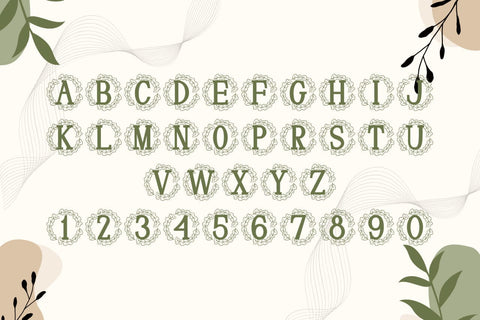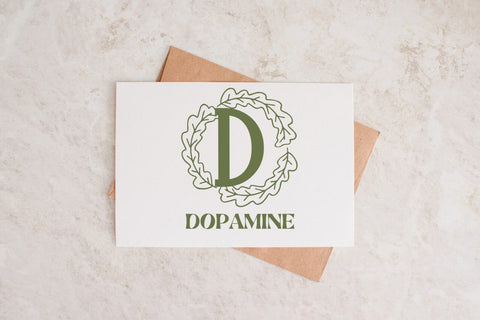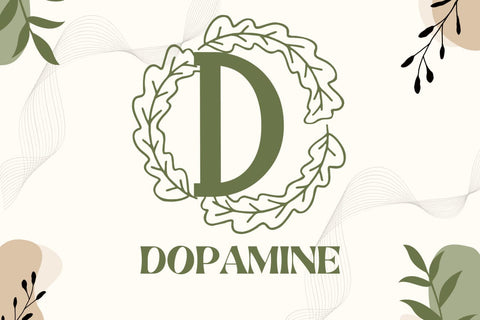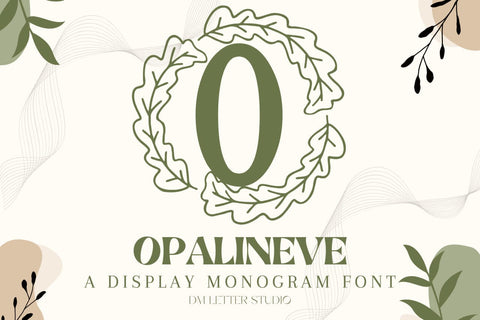
Opalineve Monogram Font
Meet Opalineve, the Monogram Font
Opalineve Monogram Font turns simple initials into luminous, boutique-ready emblems. Lines are smooth and balanced, with gentle curves that feel elegant without fuss. Open counters keep tiny tags readable and thumbnails crisp, so your work looks polished from favor labels to entryway signage. Use it for wedding suites, boutique logos, keepsake gifts, foil seals, stationery, and premium packaging. In addition, Opalineve pairs beautifully with a soft serif or a neat humanist sans, which makes layout decisions quick and consistent.
Where this monogram font shines
Set single, double, or triple initials for logos, seals, menus, and place cards. Then frame them with laurel rings, oval borders, rope circles, or thin rules to echo Opalineve’s calm geometry. Because proportions favor symmetry and steady spacing, centered compositions come together in minutes. As a result, your listings stay cohesive across invitations, signage, boxes, and tags. Opalineve also scales smoothly from jewelry cards to statement wall pieces.
Design tips for Opalineve Monogram
Keep initials large and let white space breathe. Pair the hero mark with a soft serif for body copy or a tidy sans for dates and labels. Add a fine inner stroke, micro shadow, or delicate frame to create depth. Because the structure is airy and refined, textured papers and metallic foils raise perceived value. Keep wording short so the monogram remains the hero, especially on small favors and wax seals.
Select stylistic alternates for key letters
Curves tuned for foil, letterpress, engraving, laser cutting, and clean vinyl paths
Why creators choose this monogram font
You want elegance that reads at a glance and sells across many product types. Opalineve Monogram Font delivers steady clarity, quick layout, and a cohesive brand voice from invites to packaging and gifts.